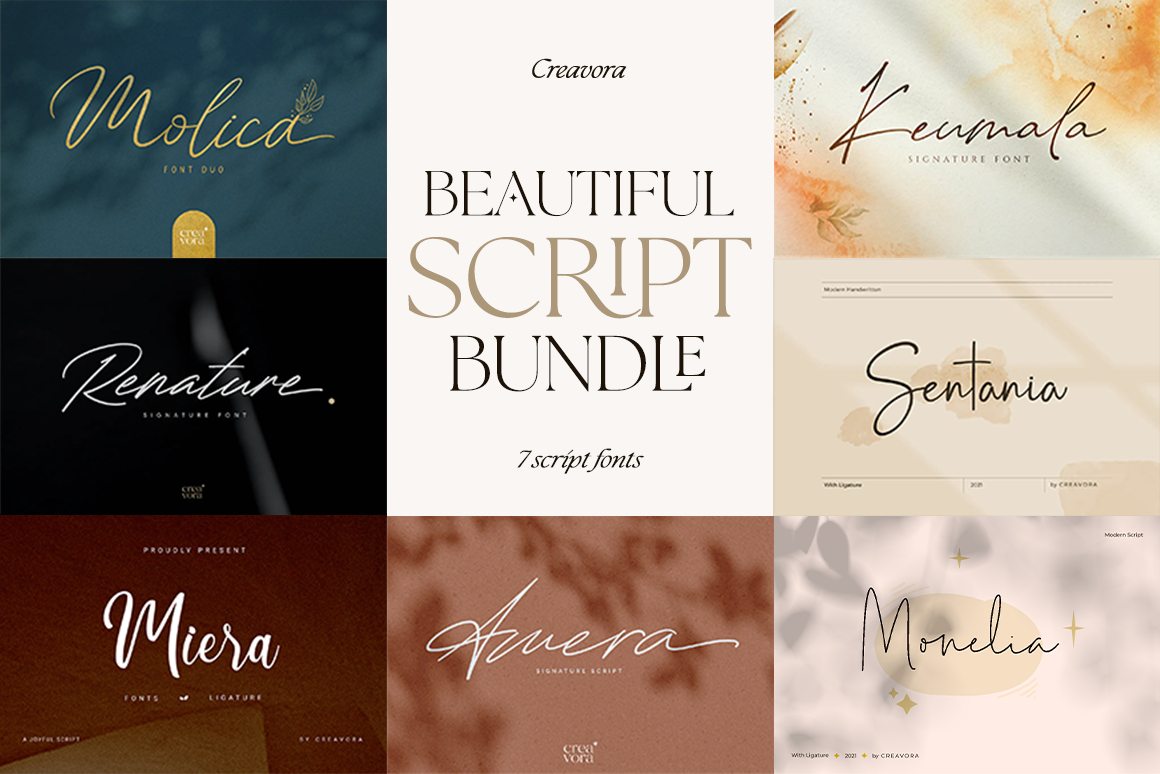
Are you looking for a new bundle that has completely artistic scripts? We are happy to introduce The Beautiful Script Bundle that is ideal for your projects and tasks.
It is a set of 7 script fonts that are perfect for wedding invitations, save the date cards, craft projects, websites, social media fine art papery, feminine branding, or personal gift cards. Everything you need has included in this package. This gorgeous bundle will save you 80% off the regular price.
This bundle contains:
- Sentania - Handwriting Font https://crmrkt.com/RNKJb4
- Keumala - Signature Script Font https://crmrkt.com/7d7GqX
- Renature - Signature Font https://crmrkt.com/xEyDoj
- Amera - Signature Font ( Coming Soon on Creativemarket )
- Molica - Font Duo ( Coming Soon on Creativemarket )
- Miera - Script Font ( Coming Soon on Creativemarket )
- Monelia - Handwriting Font ( Coming Soon on Creativemarket )